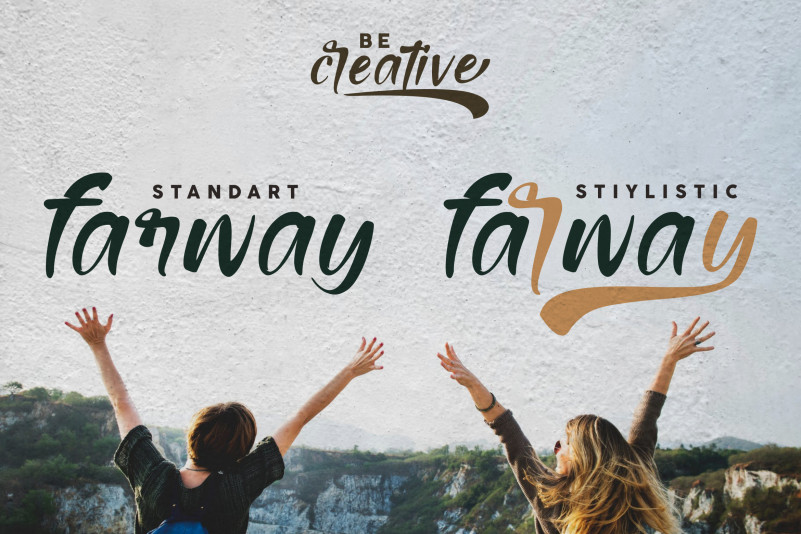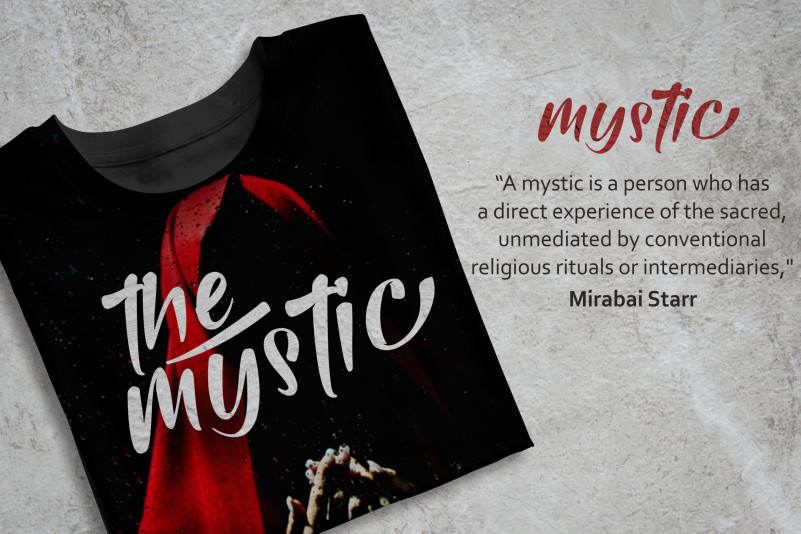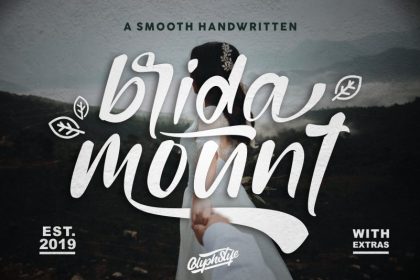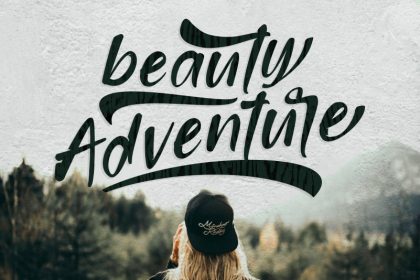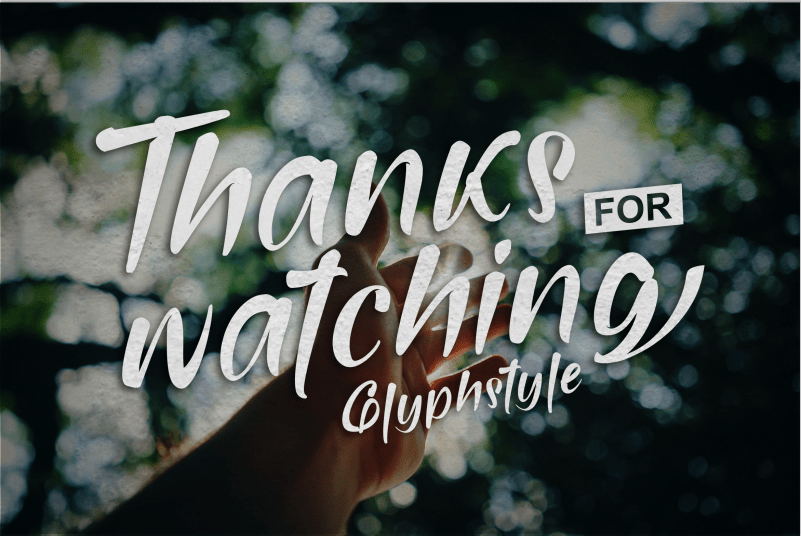
Bridamount Script Font is smooth handwriting. bridamount with smooth and detailed curves. bridamount is perfect for adventure-themed projects. Bridamount Script Font can be used for branding and logos, wedding designs, social media posts, advertisements, business cards, clothing products, quotes, magazine covers, labels, photography, watermarks, invitations, stationery, and any project that requires handwriting tastes smooth one.
You also get an additional icon for adventure design